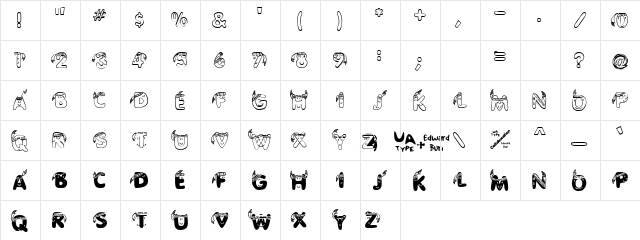
Junglenews Regular
DesignerJupiterImages
Design Context for Junglenews Typeface
Junglenews is a composed and adaptable typeface that performs quietly and consistently across a wide range of design contexts.
Pro Tip: Use Junglenews in both headline and body roles to test its range before committing to a single application.